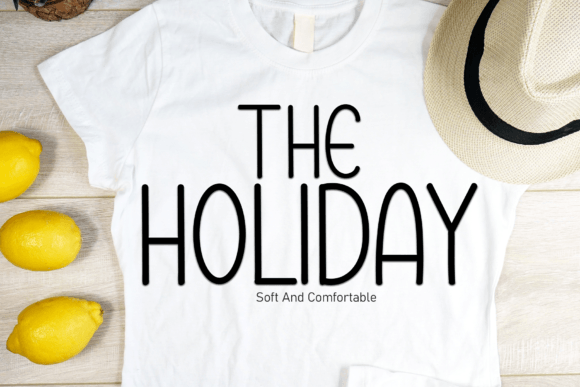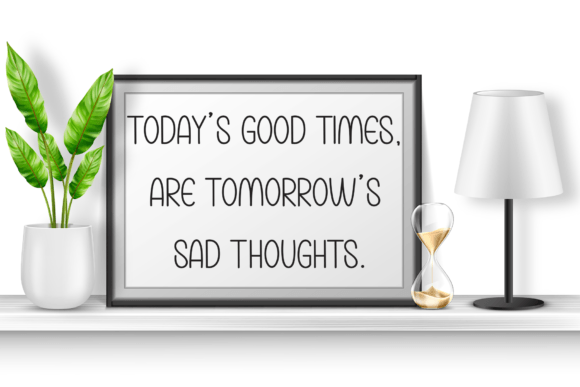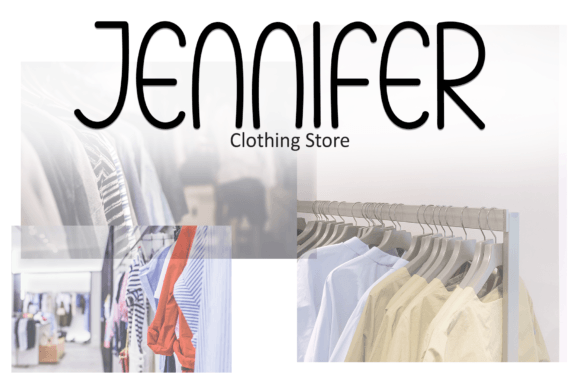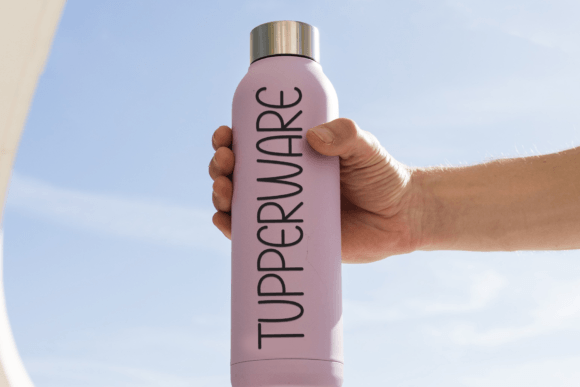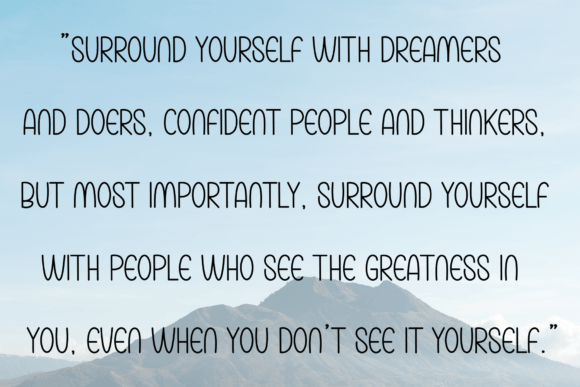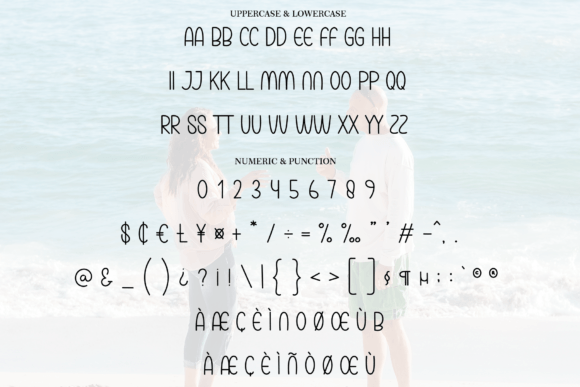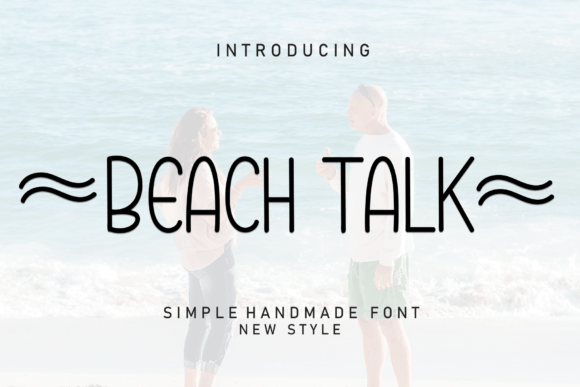
Introducing Beach Talk Font: The Sweet and Friendly Handwritten Font for Your Design Needs
Are you looking for a font that can add a touch of warmth and personality to your designs? Look no further than Beach Talk Font, a beautiful handwritten font that’s perfect for creating wedding invitations, cards, and other designs that require a lovely and casual touch.
What is Beach Talk Font?
Beach Talk Font is a sweet and friendly handwritten font that’s designed to bring a sense of freshness and casualness to your designs. With its smooth and flowing lines, this font is ideal for creating designs that require a personal and approachable feel. Whether you’re designing wedding invitations, greeting cards, or other paper crafts, Beach Talk Font is the perfect choice.
Characteristics of Beach Talk Font
So, what makes Beach Talk Font so special? Here are some of its key characteristics:
- Sweet and friendly: Beach Talk Font has a warm and inviting personality that’s perfect for creating designs that require a personal touch.
- Handwritten: This font has a beautiful handwritten feel that’s perfect for creating unique and personalized designs.
- Fresh and casual: Beach Talk Font has a fresh and casual vibe that’s perfect for creating designs that require a relaxed and informal feel.
- Versatile: This font is versatile and can be used for a wide range of design projects, from wedding invitations to greeting cards and more.
Uses for Beach Talk Font
Beach Talk Font is a versatile font that can be used for a wide range of design projects. Here are some ideas to get you started:
- Wedding invitations: Beach Talk Font is perfect for creating beautiful and personalized wedding invitations that set the tone for a special day.
- Greeting cards: This font is ideal for creating greeting cards for birthdays, holidays, and other special occasions.
- Paper crafts: Beach Talk Font can be used to create a wide range of paper crafts, from scrapbooking to card making.
- Signs and posters: This font can be used to create eye-catching signs and posters for events, sales, and more.
Why Choose Beach Talk Font?
So, why should you choose Beach Talk Font for your design needs? Here are just a few reasons:
- Unique and personalized: Beach Talk Font allows you to create unique and personalized designs that stand out from the crowd.
- Easy to read: This font is easy to read, even at small sizes, making it perfect for creating designs that require a lot of text.
- Customizable: Beach Talk Font can be customized to fit your design needs, from changing the color to adjusting the spacing.
Tips for Using Beach Talk Font
Here are a few tips for using Beach Talk Font in your designs:
- Pair with other fonts: Beach Talk Font pairs well with other fonts, including serif and sans-serif fonts.
- Use for headings and body text: This font can be used for both headings and body text, making it a great choice for creating designs that require a lot of text.
- Experiment with colors: Beach Talk Font looks great in a wide range of colors, from bright and bold to soft and pastel.
Beach Talk Font is a beautiful and versatile handwritten font that’s perfect for creating designs that require a personal and casual touch. With its sweet and friendly personality, this font is ideal for creating wedding invitations, greeting cards, and other designs that require a lovely and approachable feel. Whether you’re a designer or a crafter, Beach Talk Font is a great choice for any project.